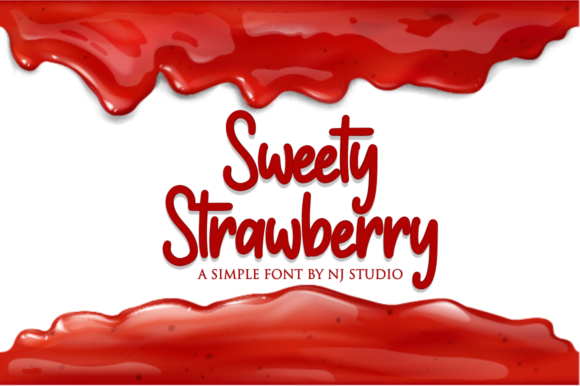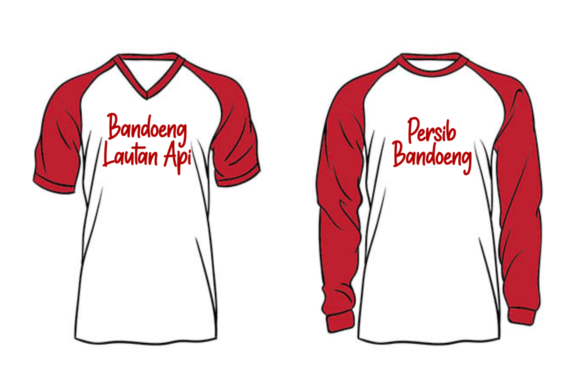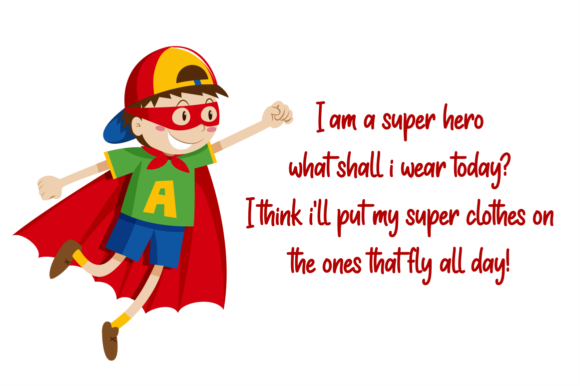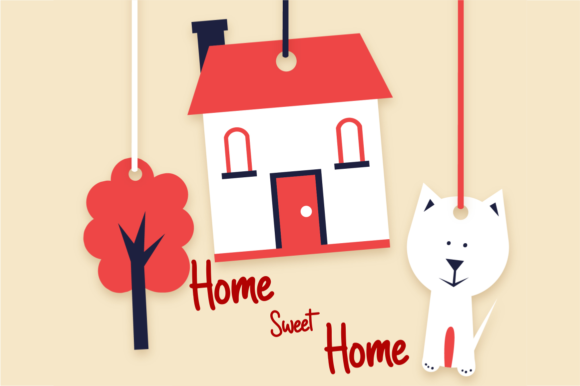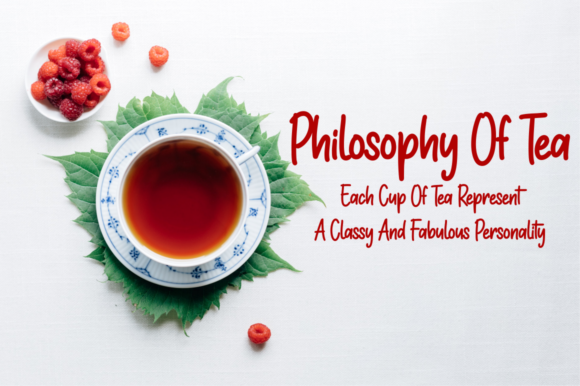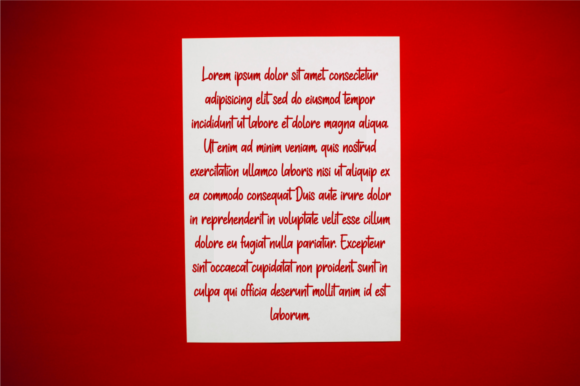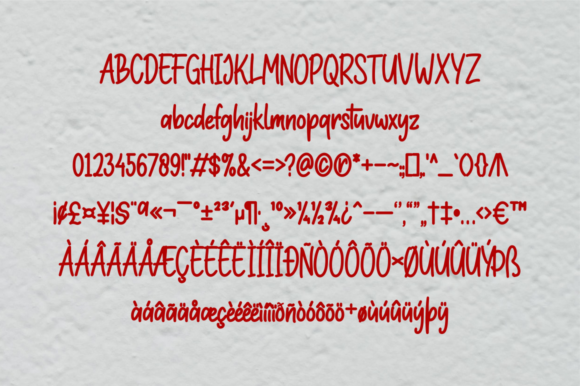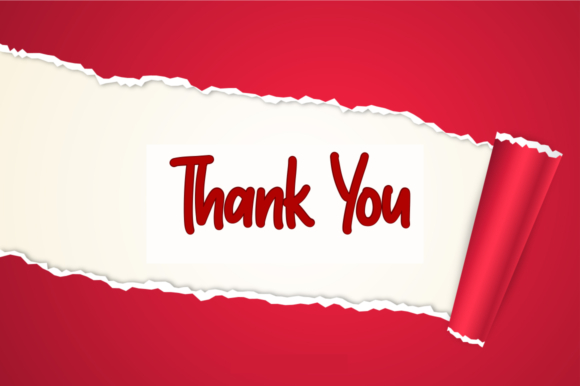
Sweety Strawberry Font
About Sweety Strawberry Font
Sweety Strawberry is a cute and casual handwritten font with an incredibly friendly feel. It will elevate a wide range of design projects to the highest level, be it branding, headings, wedding designs, invitations, signatures, logos, labels, and much more!